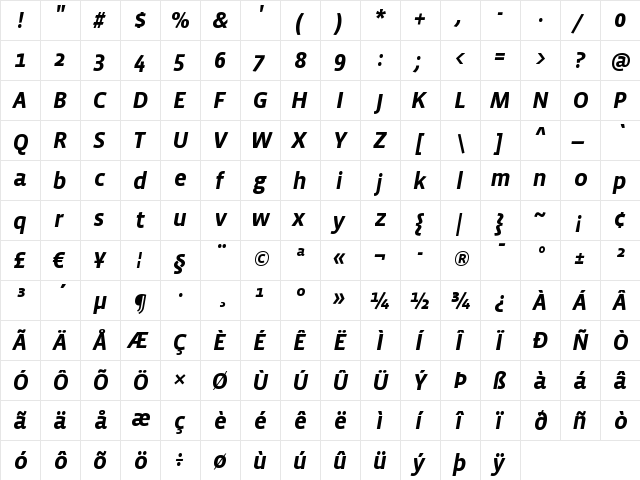
VistaSansBoldItalic Regular Font Preview
| Foundry | Xavier Dupre |
| Designer | Xavier Dupre |
Design Context for VistaSansBoldItalic Typeface
VistaSansBoldItalic offers clean, dependable letterforms without strong stylistic allegiance, making it a practical choice for designers who need flexibility. The dynamic lean of this cut emphasises speed and emphasis in any layout. The heavy weight commands attention and anchors typographic hierarchies.
Pro Tip: Use VistaSansBoldItalic for emphasis, pull quotes, and subheadings where its slanted energy can add rhythm to the layout.